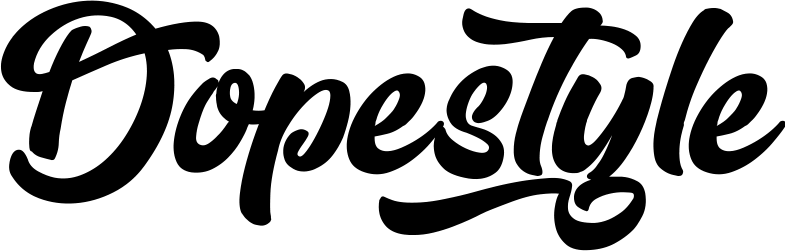
Dopestyle Font
Select this particular baseball font that is hand-drawn and you will have outstanding and stunning typography that will attract a lot of attention, wherever it is placed. The brave, bold, and adventurous letters are brilliant.
Dopestyle includes mixed-case A to Z alphabet letters, numbers, and some symbols, that provide you with a lot of freedom to achieve the design that you wish for. An example of these are gaming, display banners, jerseys, branding, and more.